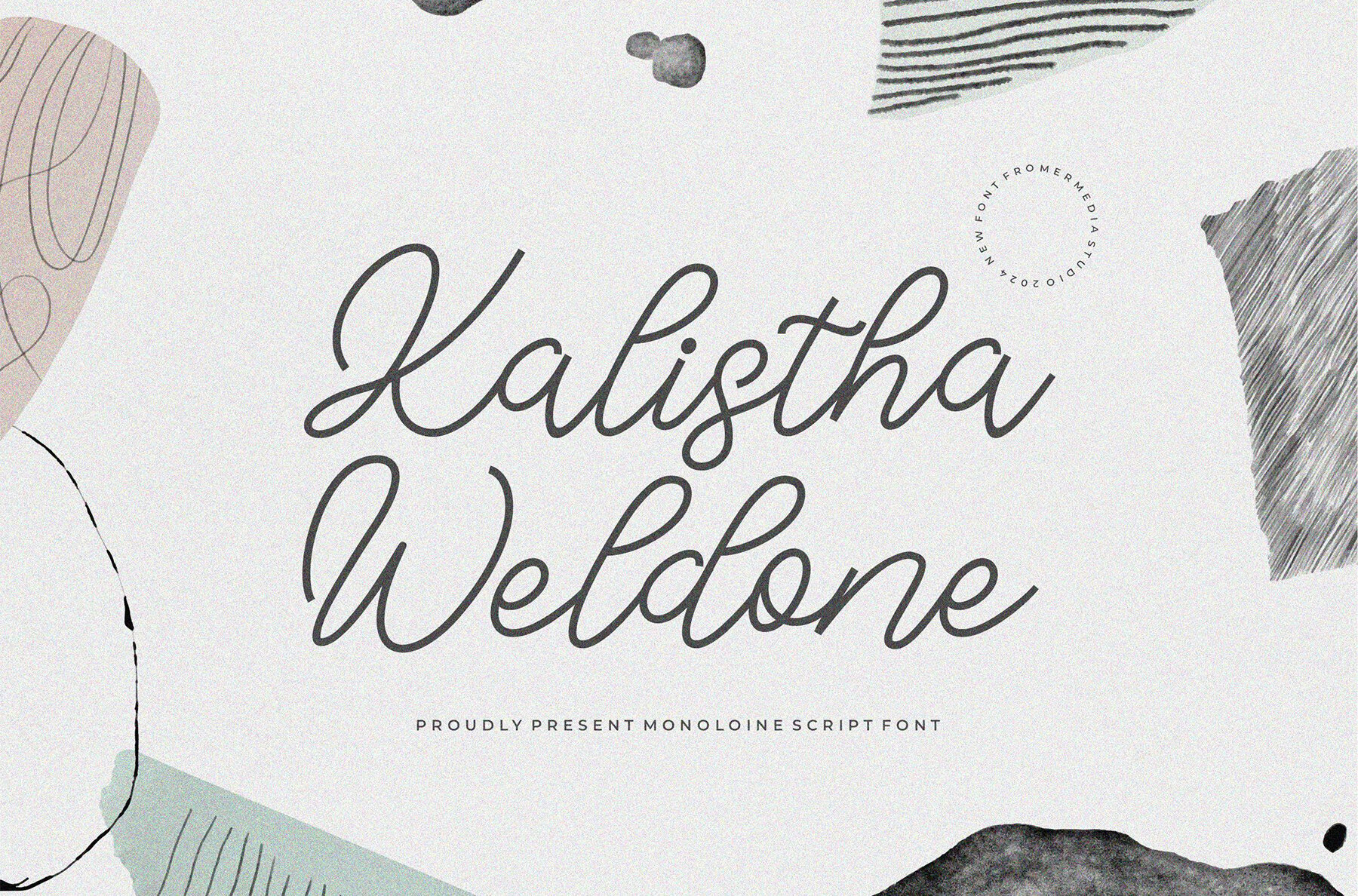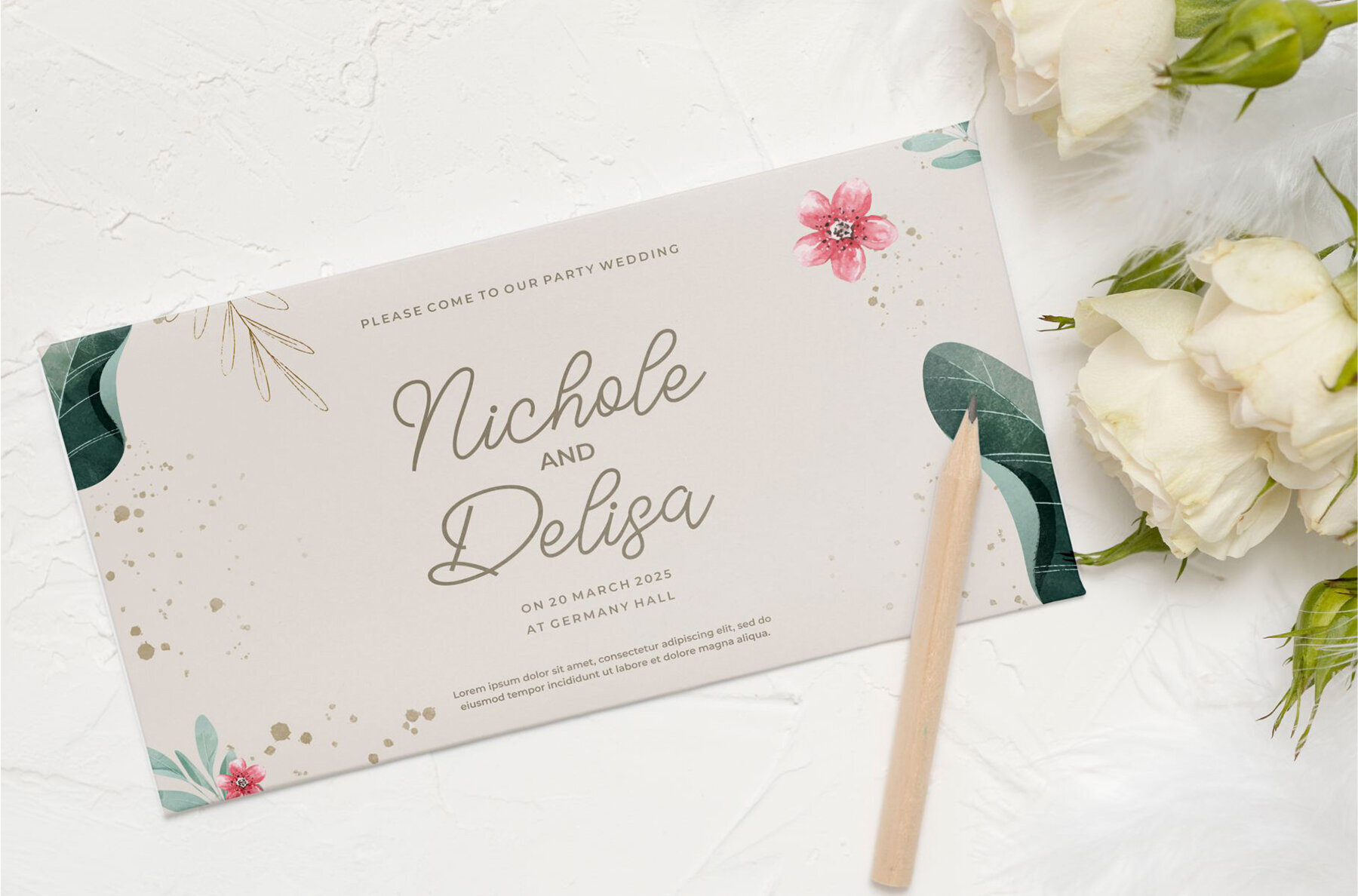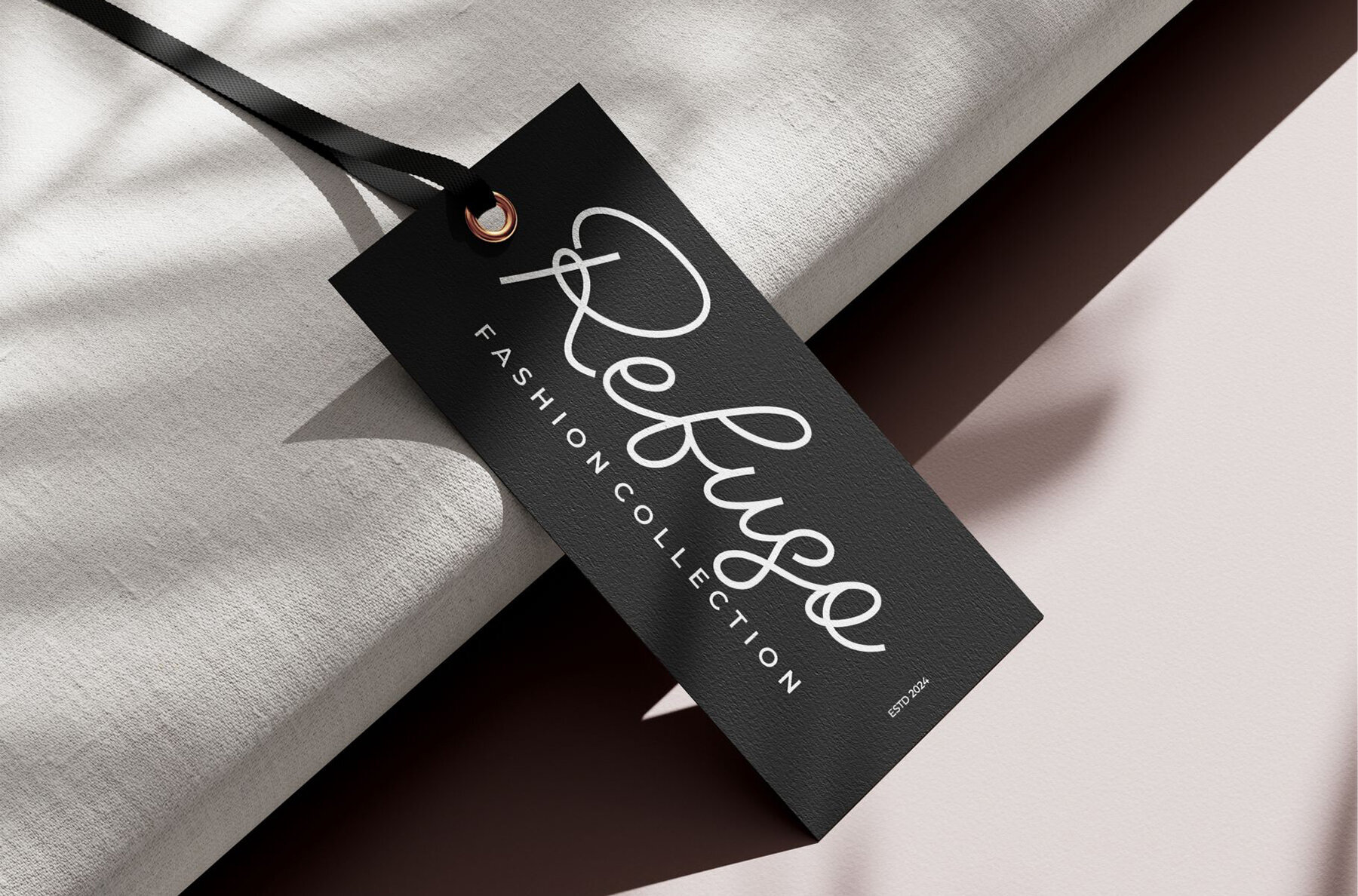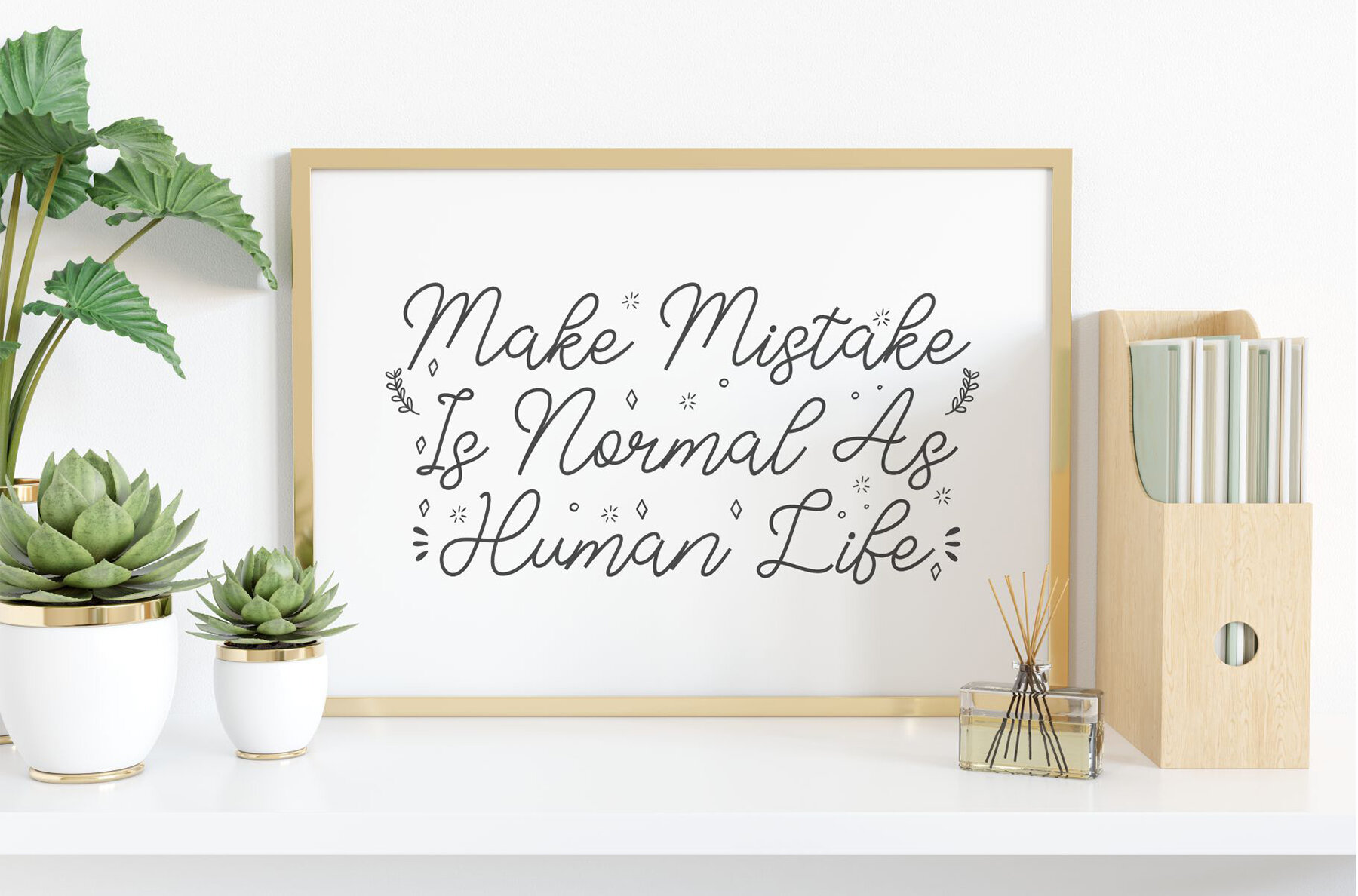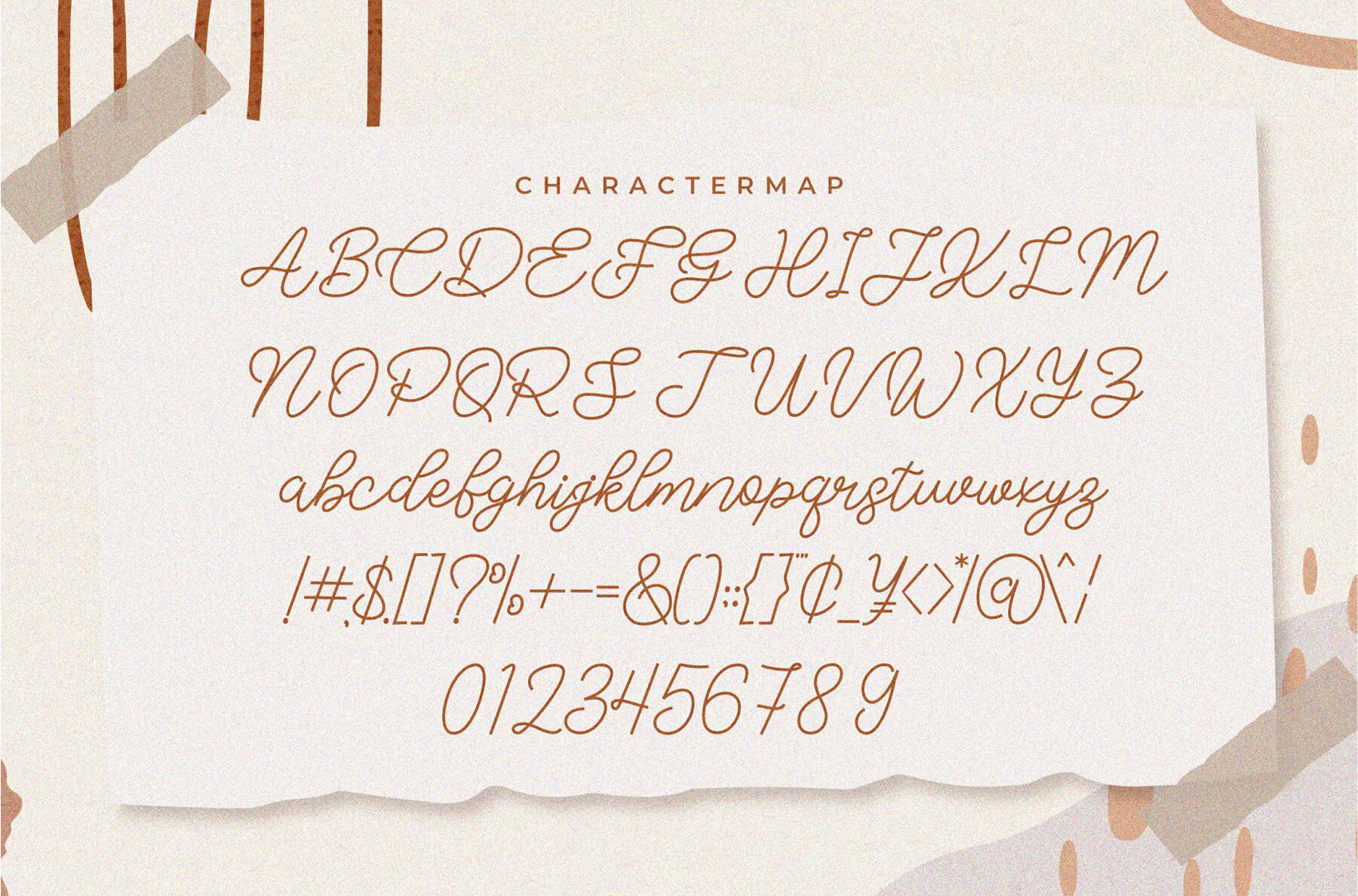
Kalistha Weldone Font
Kalistha Weldone
Kalistha Weldone is a contemporary script font that exudes a unique charm. Its versatile style makes it an ideal choice for a wide range of applications. From branding and logo design to lettering and logotypes, this font introduces a modern edge to your creative projects.
Perfect for use in clothing designs, posters, magazines, packaging, and shopping bags, Kalistha Weldone brings a fresh and stylish touch to visual media. Whether it's enhancing t-shirt prints, book covers, or photography layouts, or gracing special events with its distinctive look, this font adapts seamlessly to various design contexts. Boost your projects with its modern appeal and distinct script aesthetics.